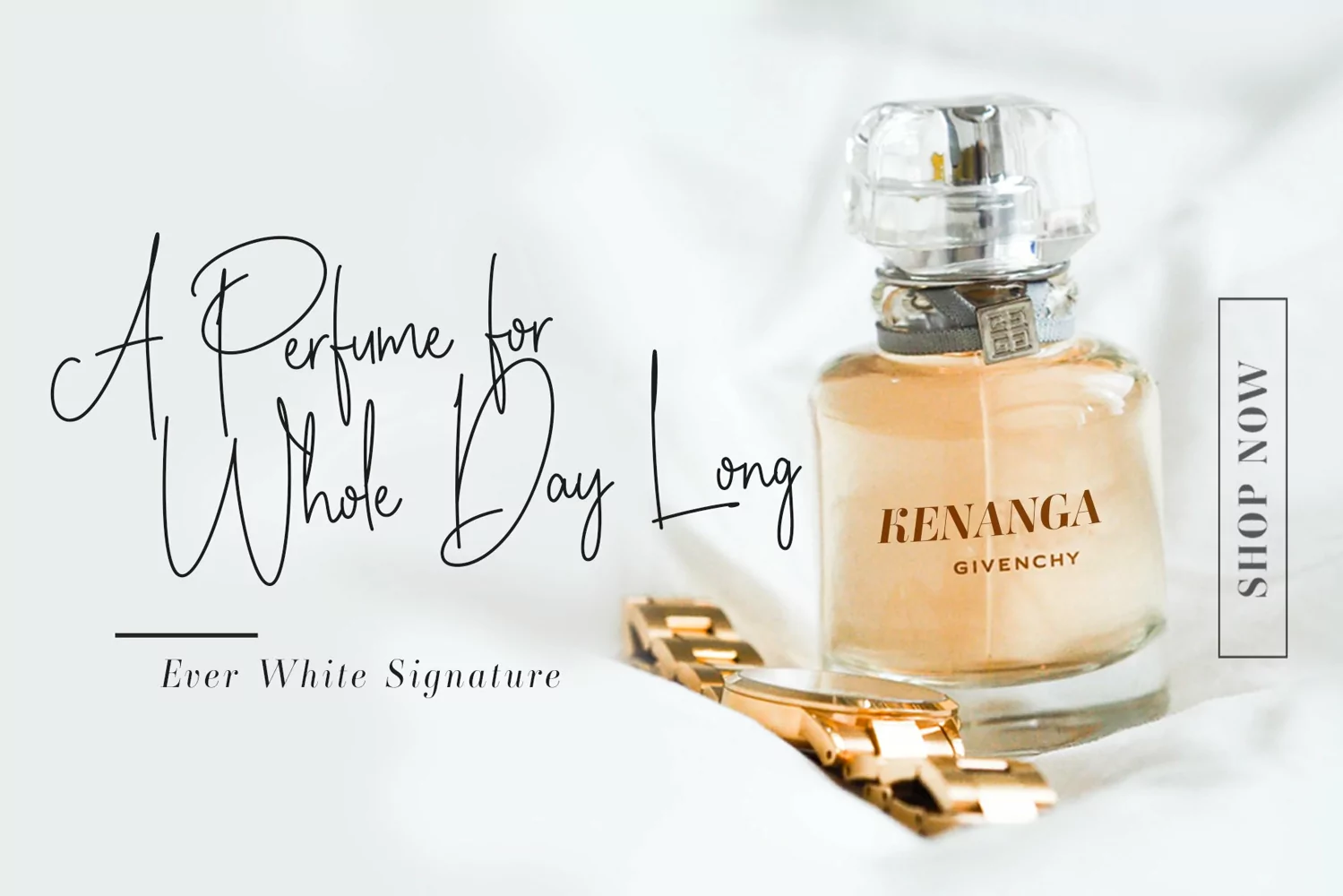
Introducing Ever White, elegant monoline font with quick a signature style. Ever White great to use for logos, inspirational quotes, t-shirt graphics, typography art, apparel, labels, posters, business cards, stylized wedding invitations, prints, signs, book cover designs headlines, titles, etc.